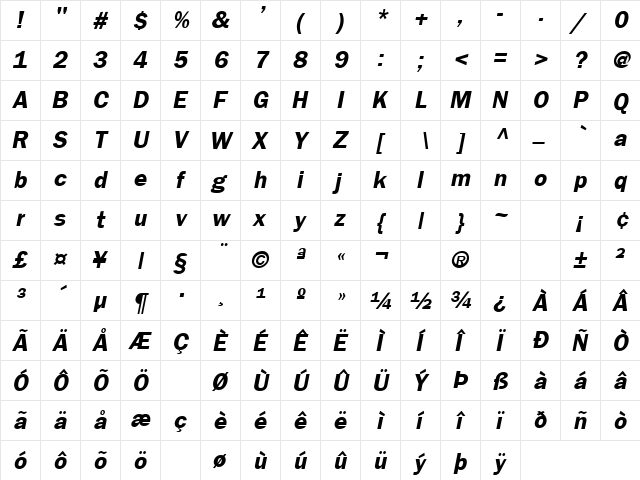
Moby Dick 13 Bold Italic
Design Context for Moby Dick 13 Typeface
Moby Dick 13 is a composed and adaptable typeface that performs quietly and consistently across a wide range of design contexts. The slanted form adds forward momentum and visual energy. The heavy weight commands attention and anchors typographic hierarchies.
Pro Tip: Try Moby Dick 13 for annotation and caption copy alongside an upright companion — the contrast in angle creates a dynamic but ordered typographic system.